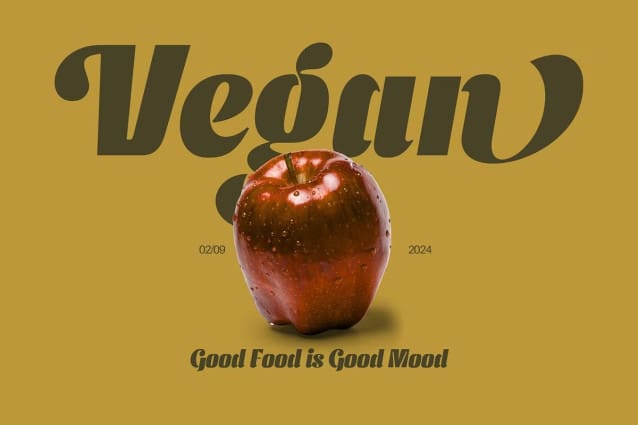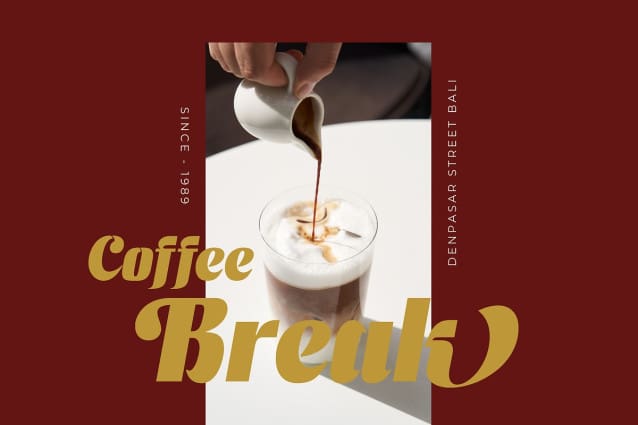
Keryla Retro Font
Keryla Retro Font offers beautiful typographic harmony for a diversity of design projects, including logos & branding, social media posts, advertisements & product designs.